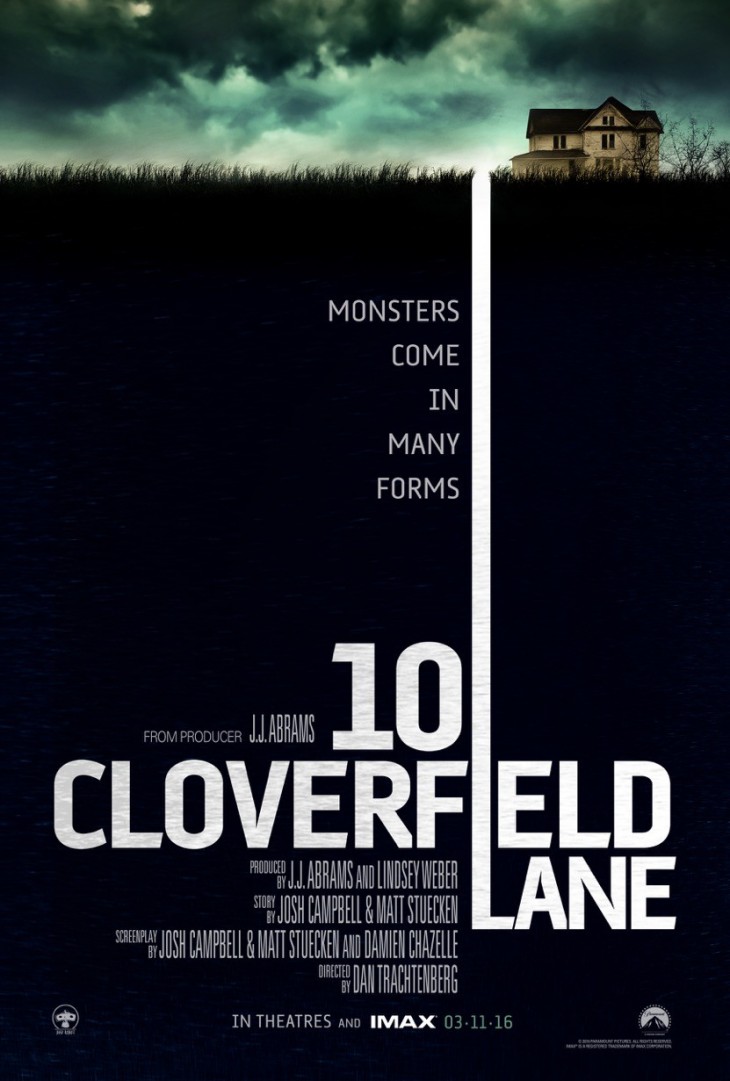
10 Cloverfield Lane Font
Fonts in Use10 Cloverfield Lane is a psychological thriller that follows a young woman who finds herself held captive in an underground bunker, uncertain whether her captor is her savior or a dangerous enemy, as she navigates a world filled with mystery and suspense.
The film title on the poster features the distinct AF Klampenborg Bold font, a sans serif typeface crafted by Danish designer Hendrick Kubel. More details about the font are available here.